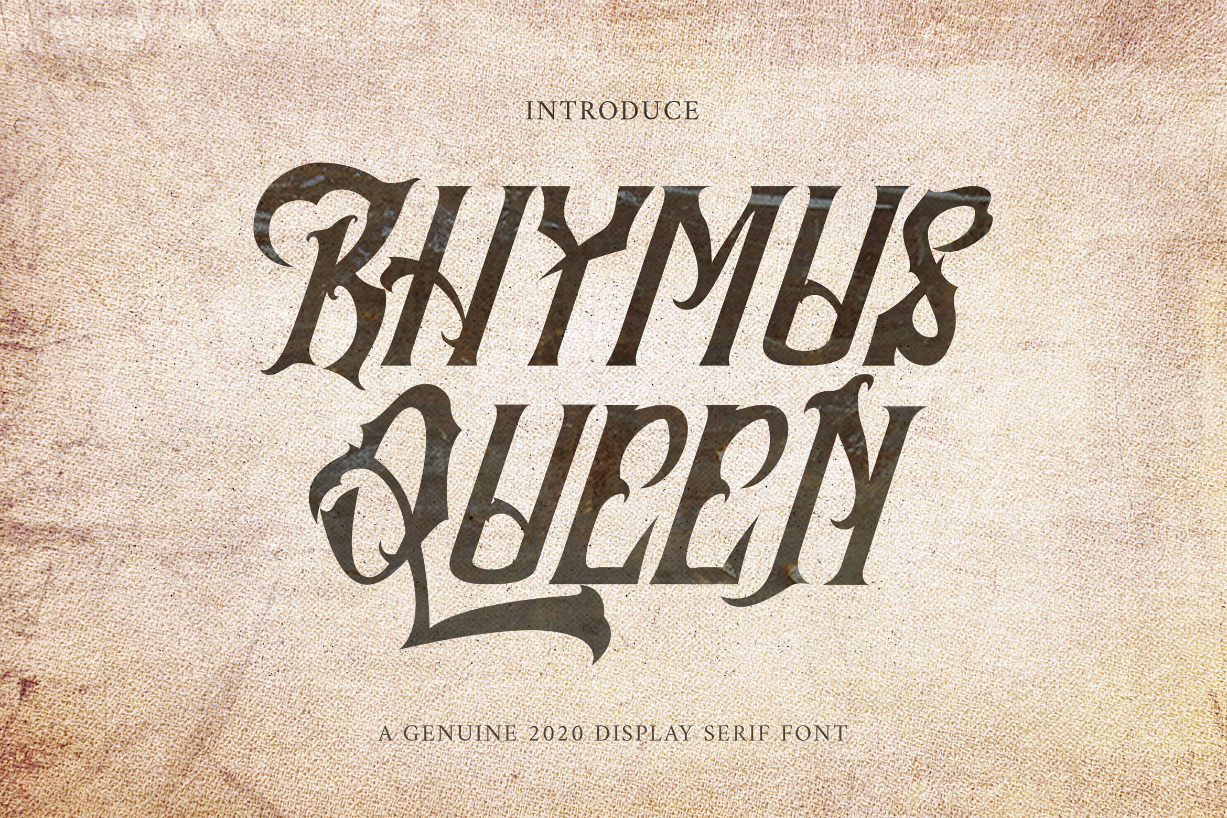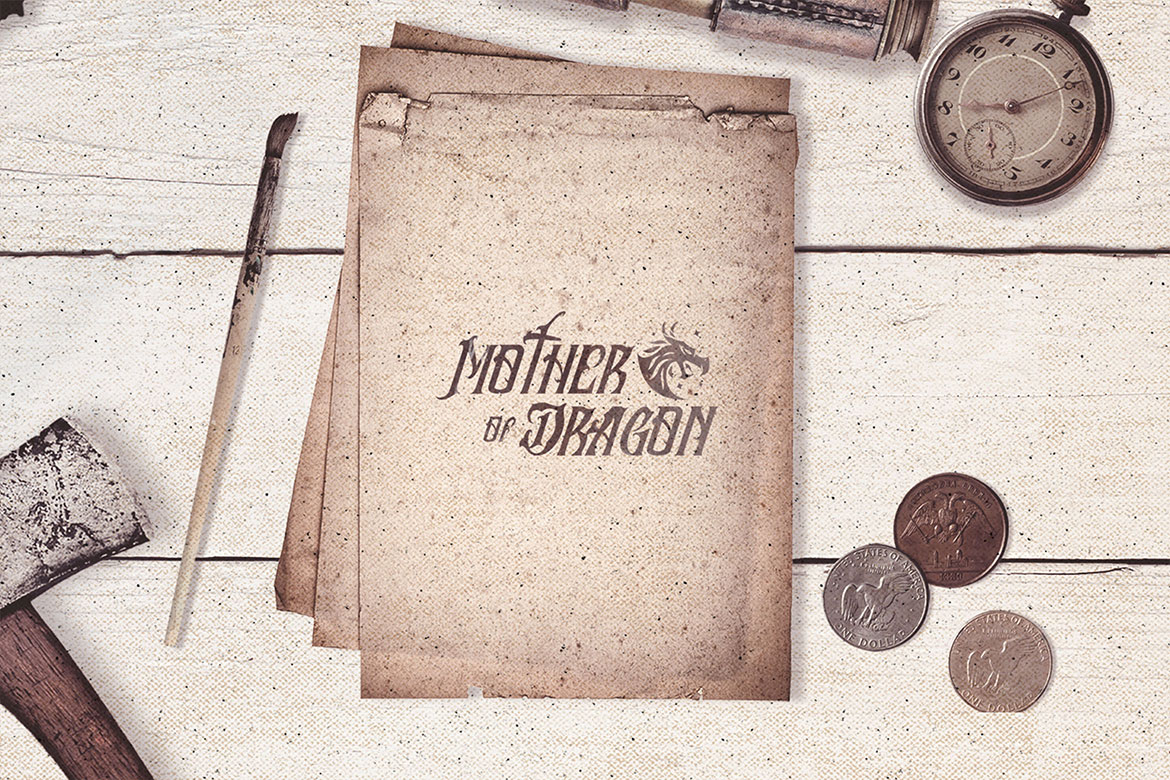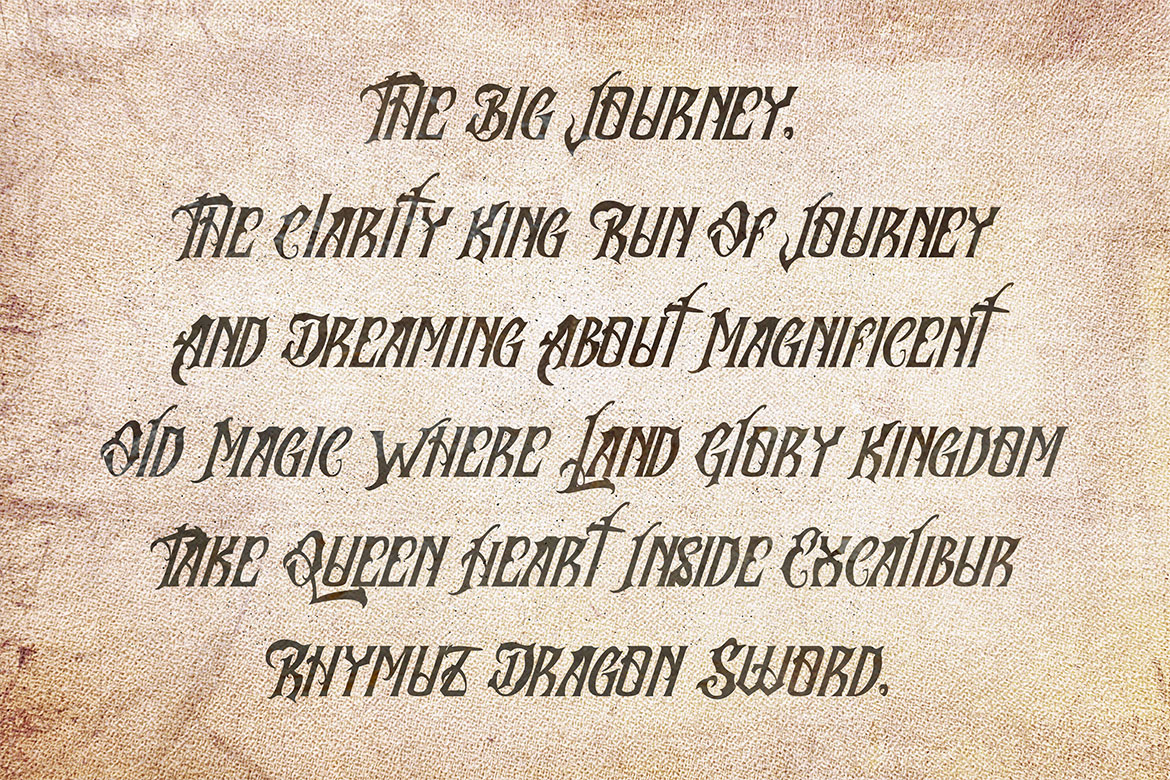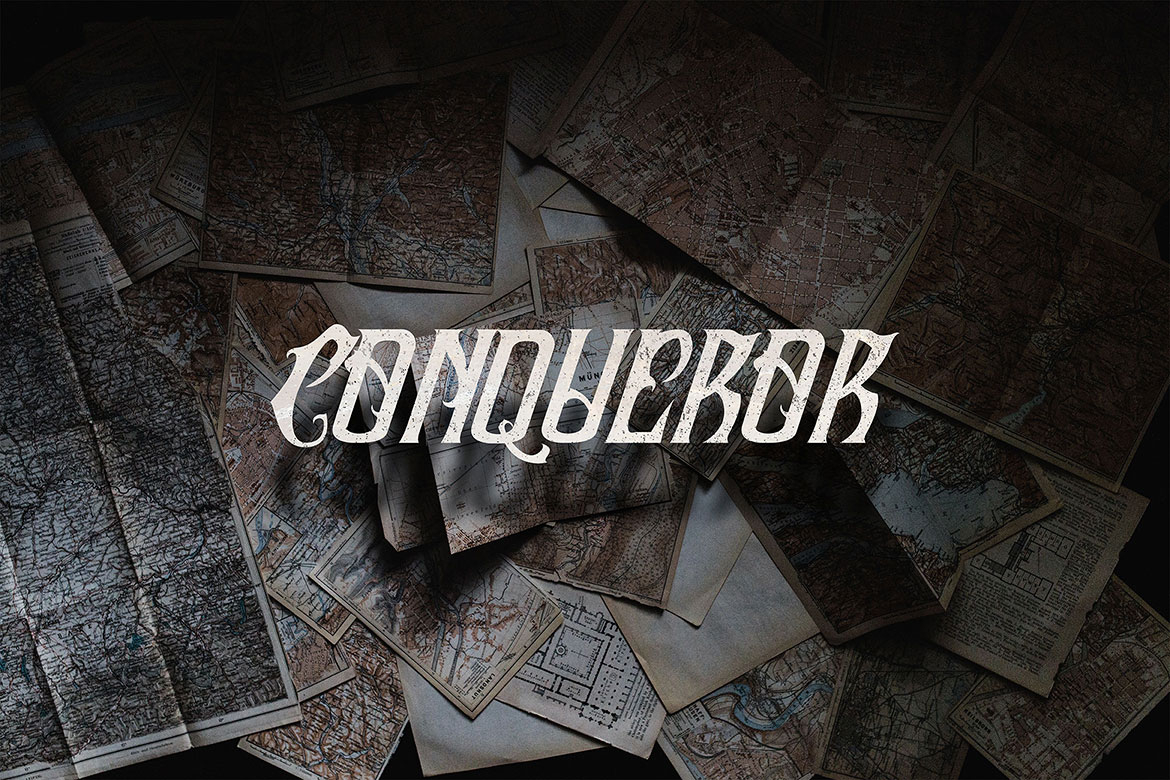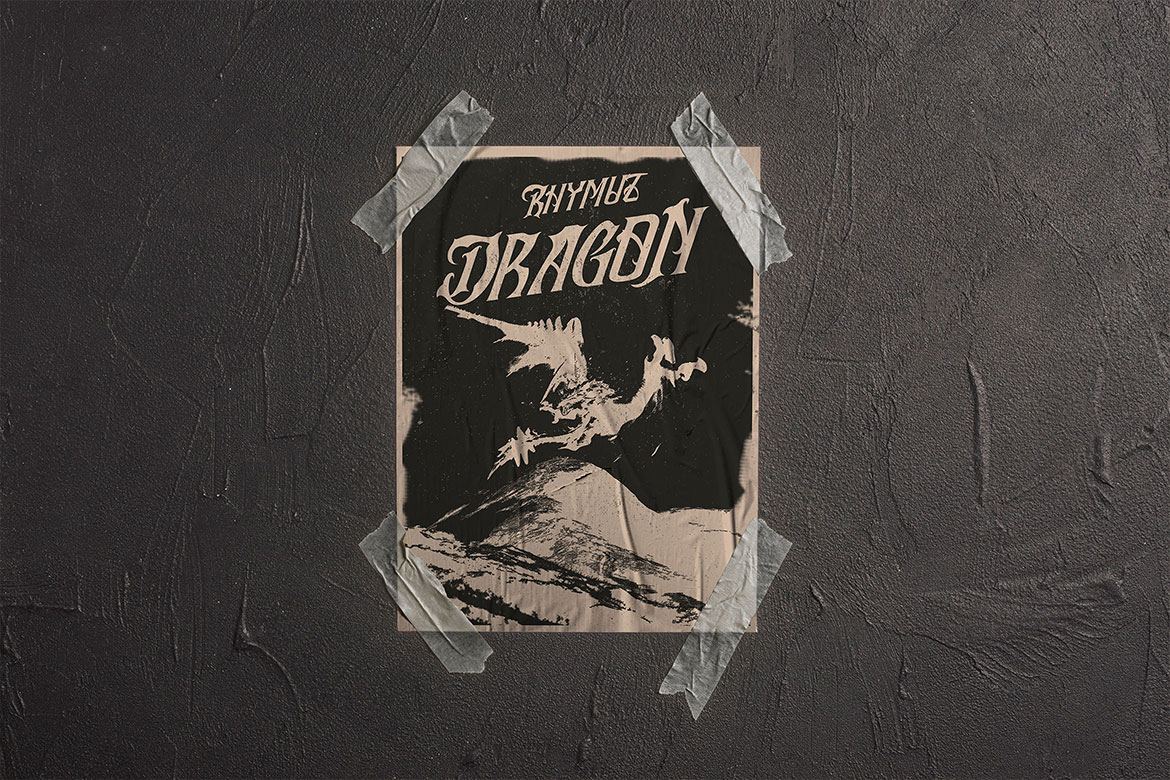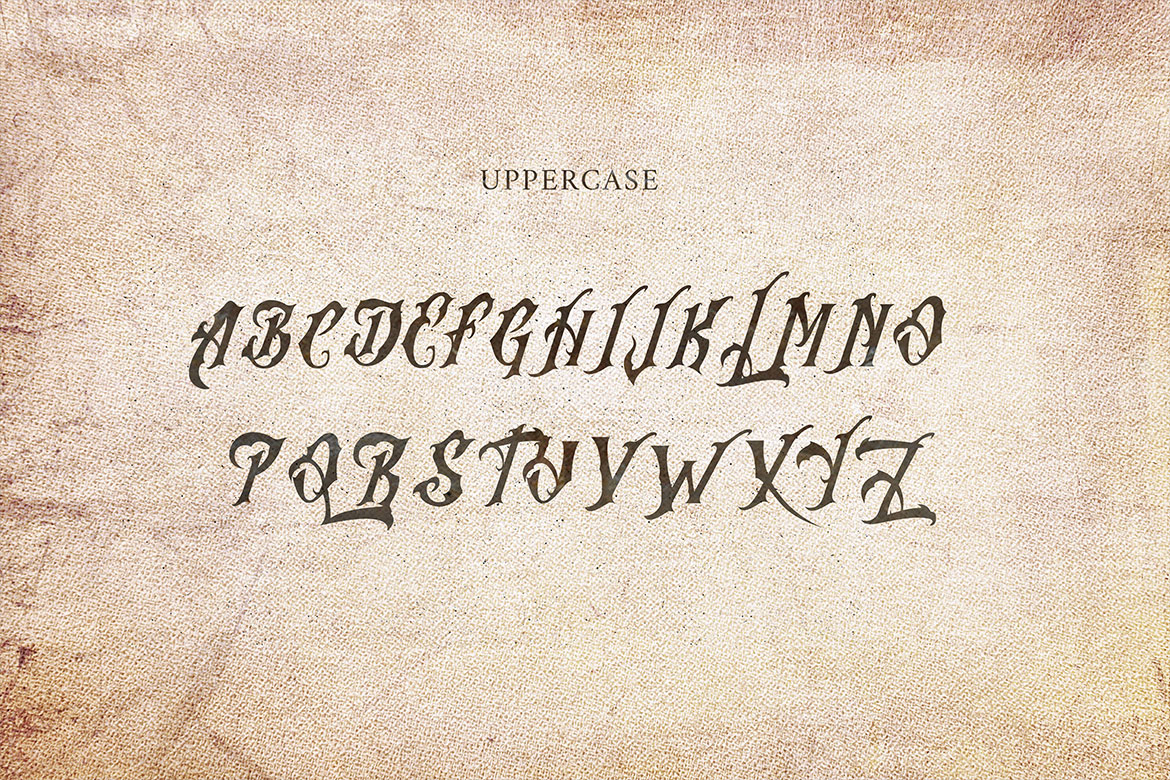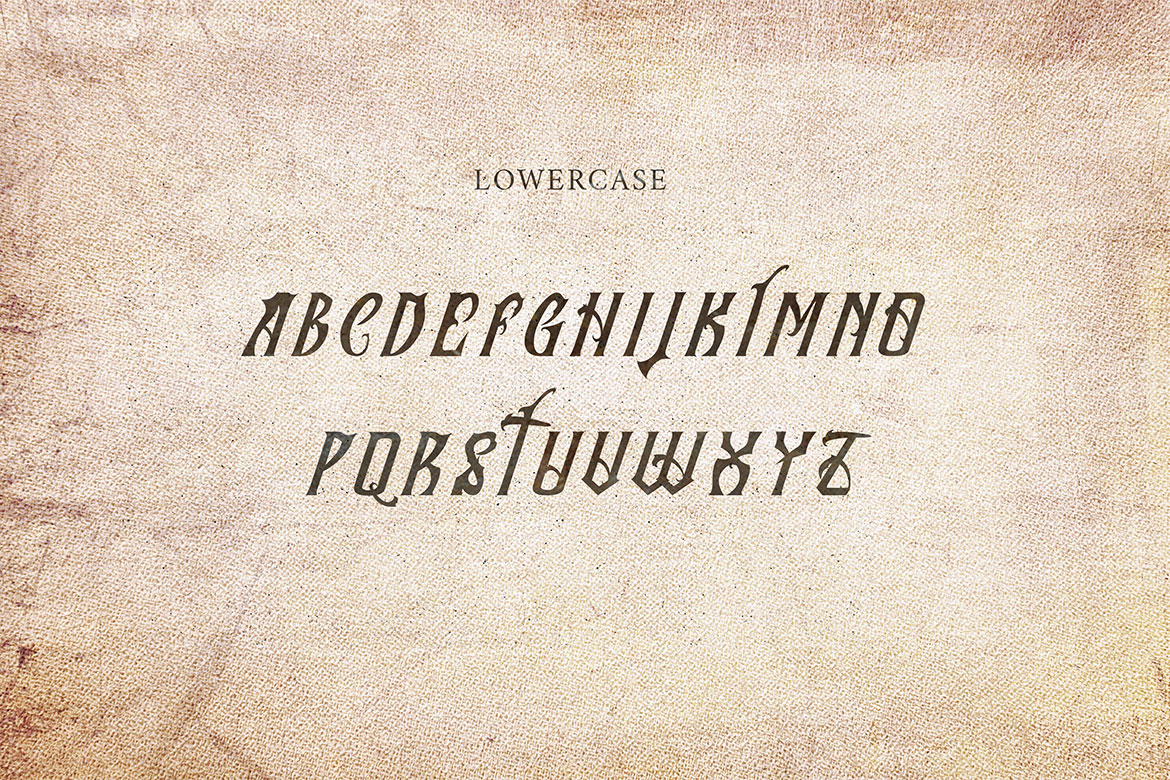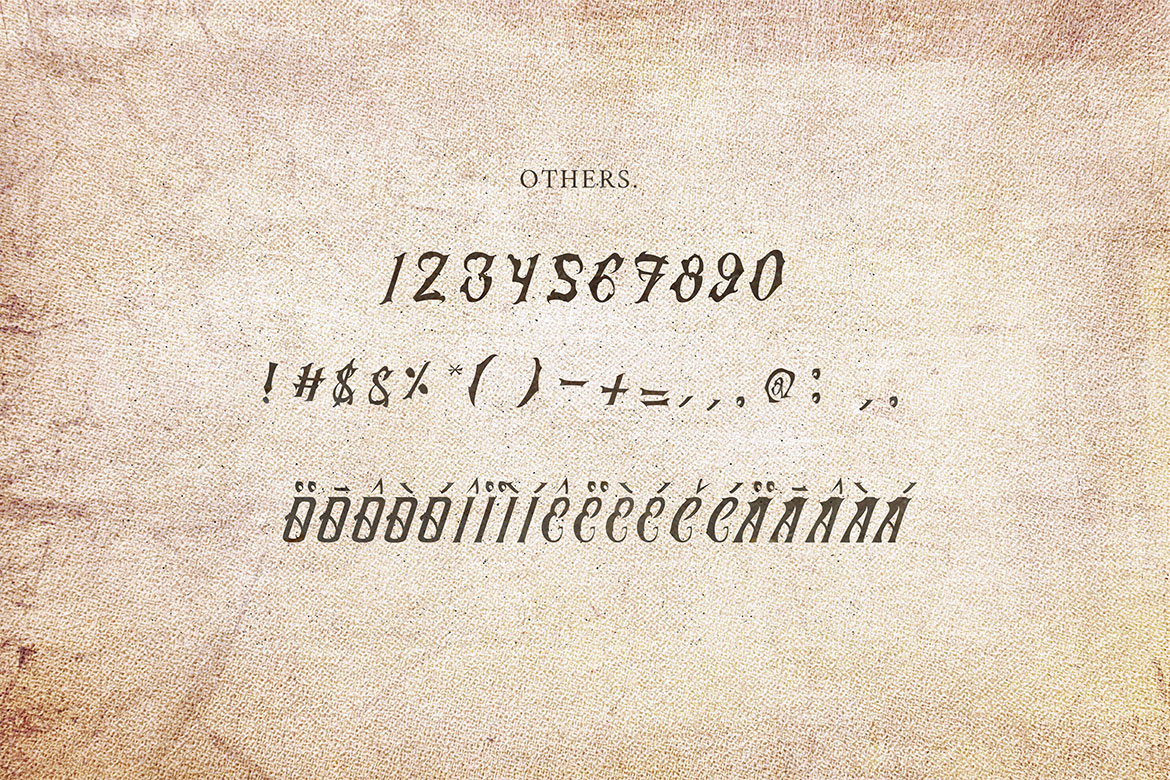
Rhymus Queen Font
About Rhymus Queen Font
Rhymus Queen is a dramatic and authentic blackletter font. Add it to your inspired ideas and notice how it brings them to life!